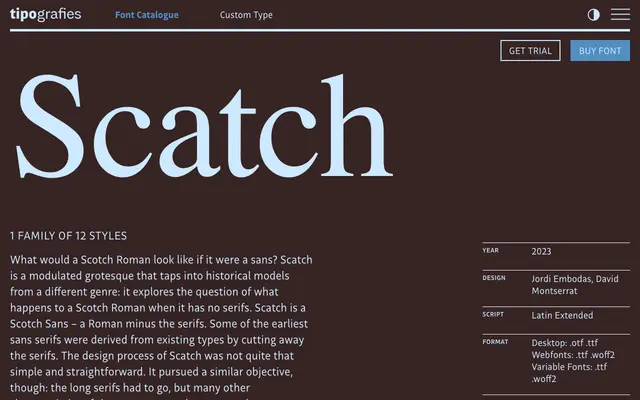
Scatch
A modulated grotesque by Jordi Embodas and David Montserrat that asks what a Scotch Roman would look like without its serifs.
Scatch takes the high contrast, proportions and rhythm of the Scotch Roman tradition and removes the serifs, producing a sans with an unusual degree of modulation for the genre. The family runs across six weights from Thin to Black with matching italics, totalling twelve styles, and is available as a variable font. Oldstyle and lining figures, alternates, ligatures and extensive Latin language support make it well suited to editorial and text settings.
Scatch is explicitly described as a modulated grotesque derived from Scotch Roman conventions stripped of serifs, retaining the high contrast and rhythm of that genre within a sans-serif structure.